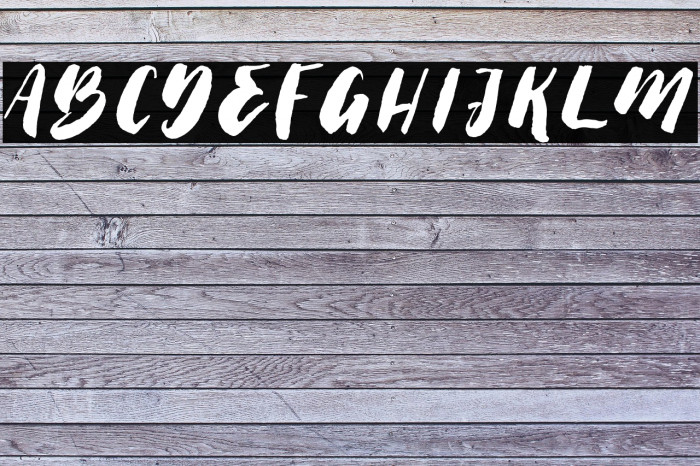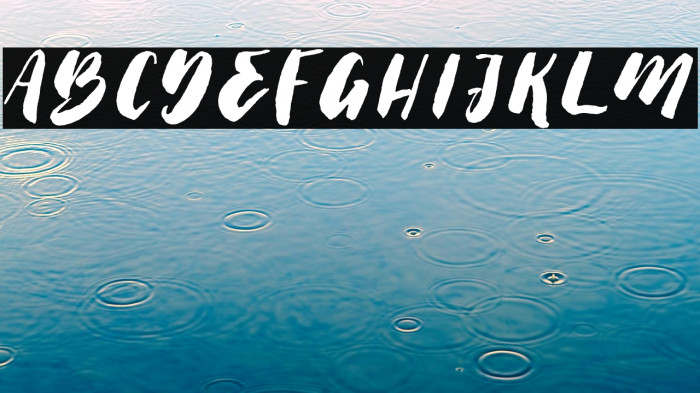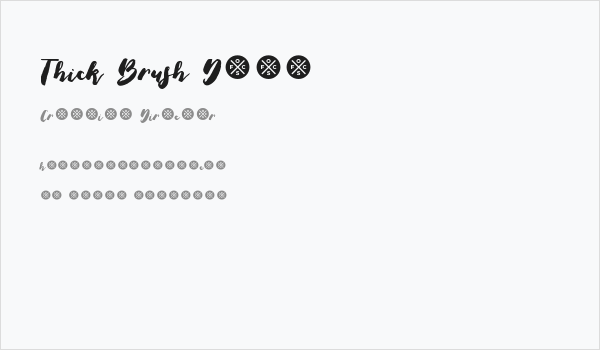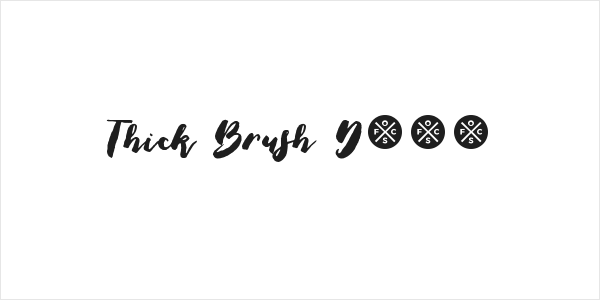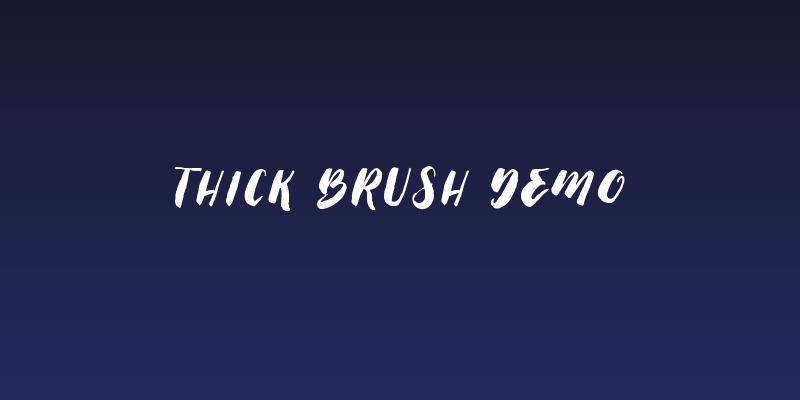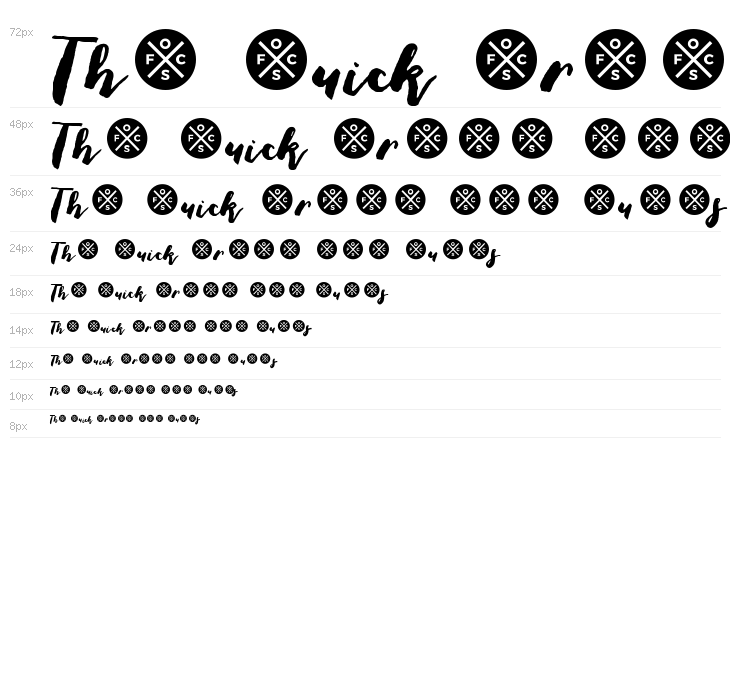
Thick Brush Demo Font
Thick Brush Demo Description
This font features a bold, expressive brush style with a dynamic and energetic appearance. The uppercase letters are crafted with thick strokes, giving them a strong presence, while the lowercase letters maintain a fluid and cursive-like quality. The overall design is reminiscent of hand-painted signage, with a modern twist that adds a touch of sophistication. The characters are slightly slanted, enhancing the sense of movement and flow. This font is ideal for projects that require a personal and artistic touch, such as branding, packaging, or creative posters.
| Proposed Projects | Branding, packaging, creative posters, artistic invitations, and signage. |